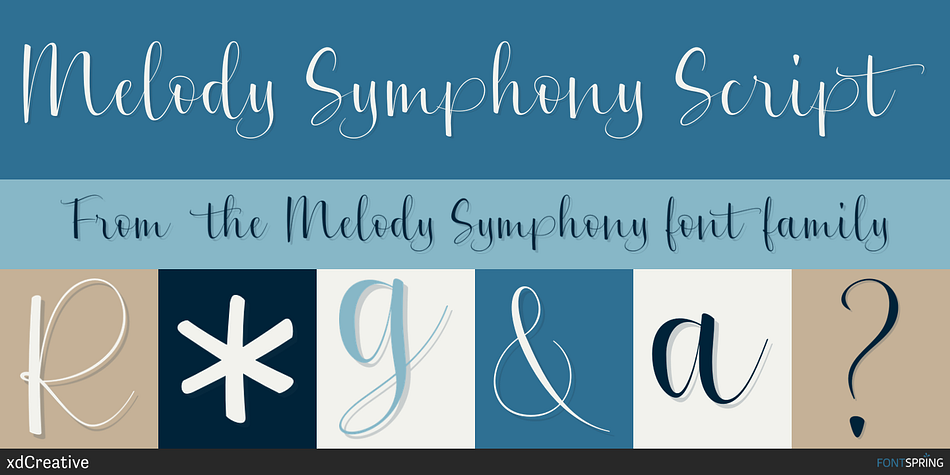
Melody Symphony Script
Designed by Faldy Kudo, Melody Symphony is a display serif and modern calligraphy font family. This typeface has three styles and was published by xdCreative.
Say hello to “Melody Symphony Font Duo,” the latest font family from @faldykudo.
“Melody” is a feminine and modern serif font with a slim construction and anatomy, while “Symphony” offers hand-drawn modern calligraphy. Together, they create a perfect combination for various design needs.
“Melody Symphony” is ideal for a wide range of applications including logos and branding, invitations, stationery, wedding designs, social media, advertisements, printed quotes, product packaging, labels, photography, watermarks, special events, and magazine layouts.